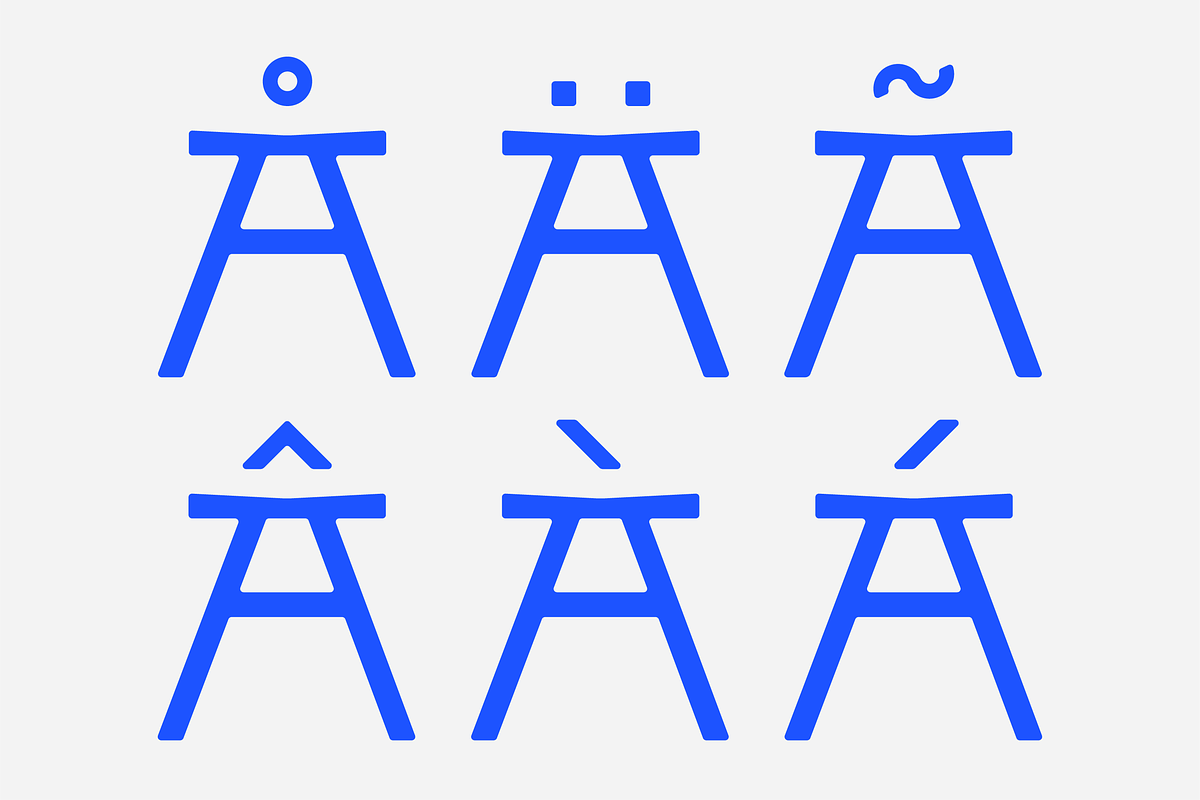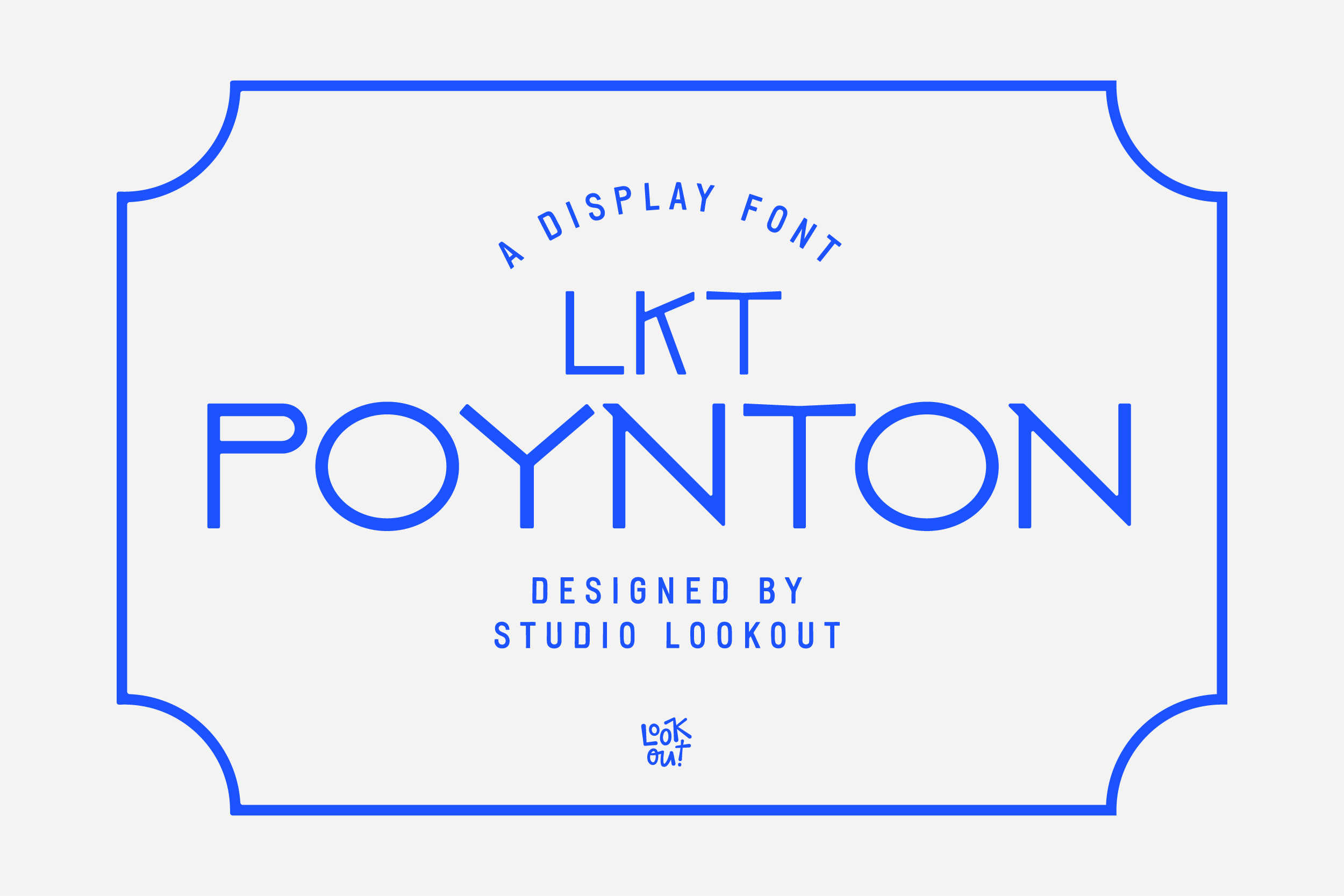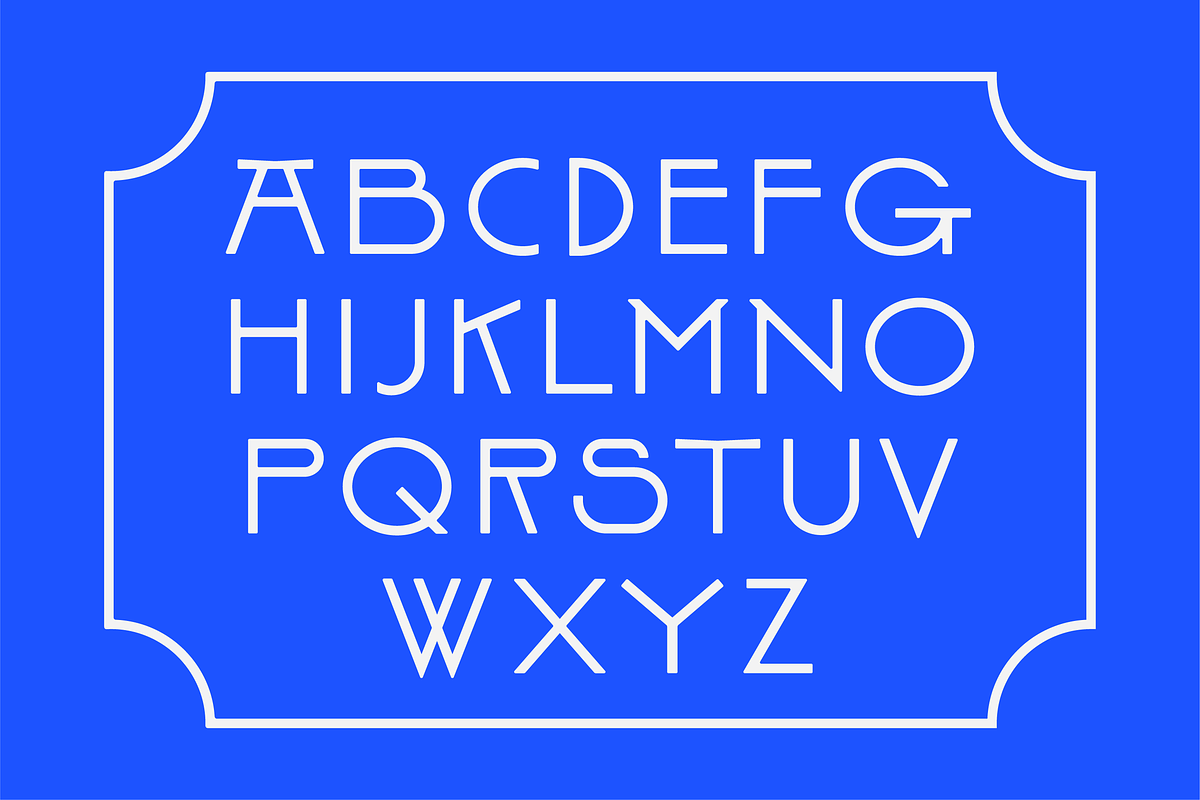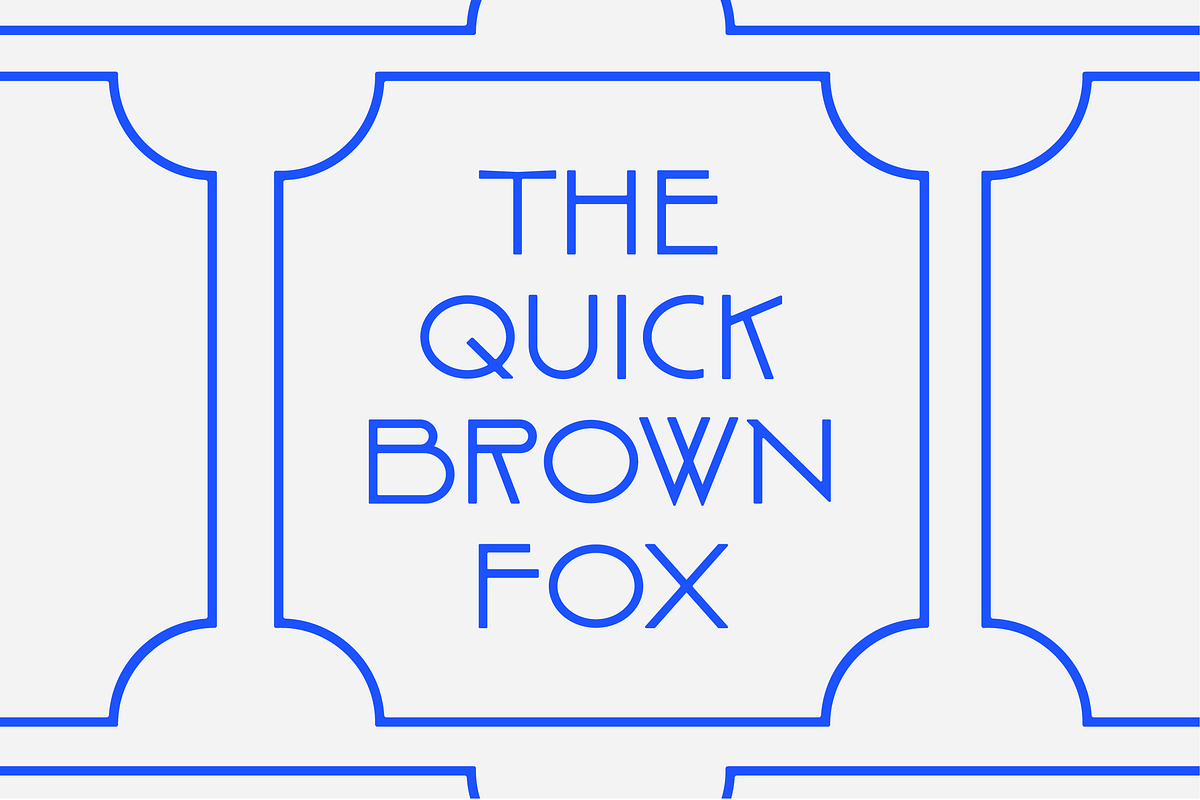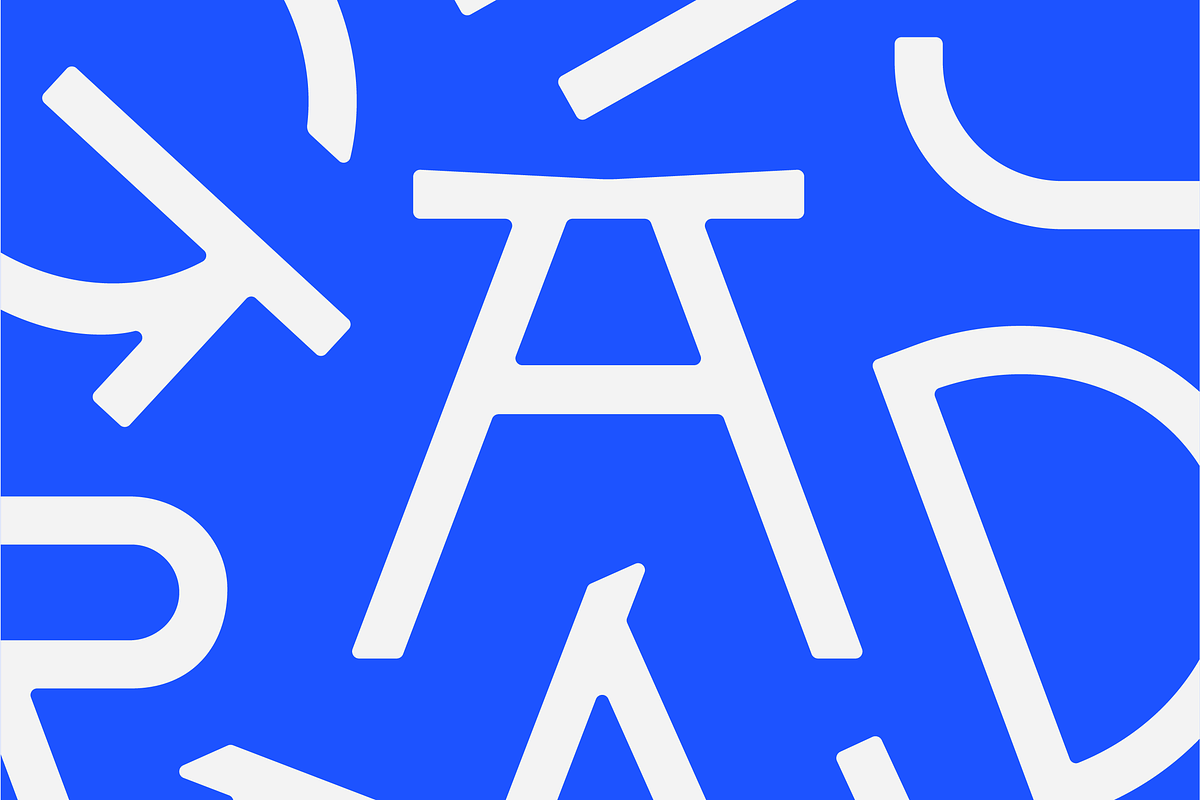
LKT Poynton Display Font
LKT Poynton Display
LKT Poynton Display is an all caps display font inspired by historic railway stations. It combines the best of both the present and the past, giving it a vintage yet fresh feel. Perfect for designs that are in need of that classic, timeless look.
- All caps alphabet glyphs, ligatures and alternates
- Numerals & punctuations